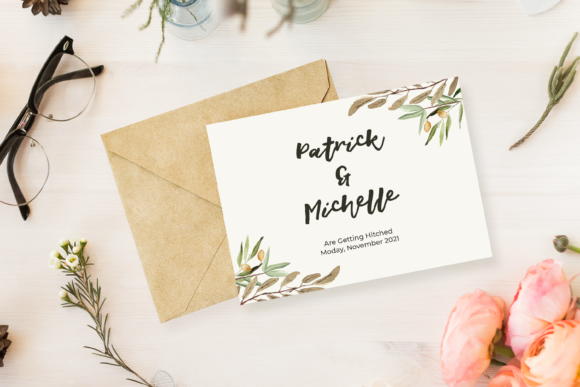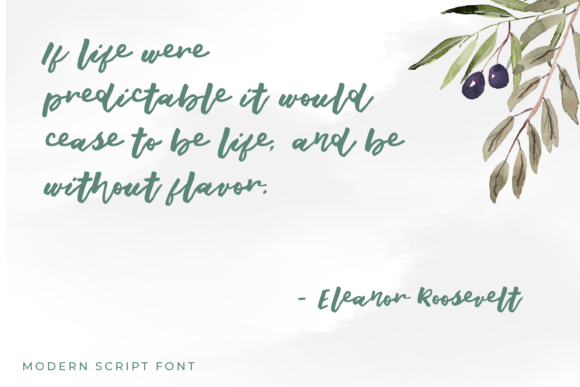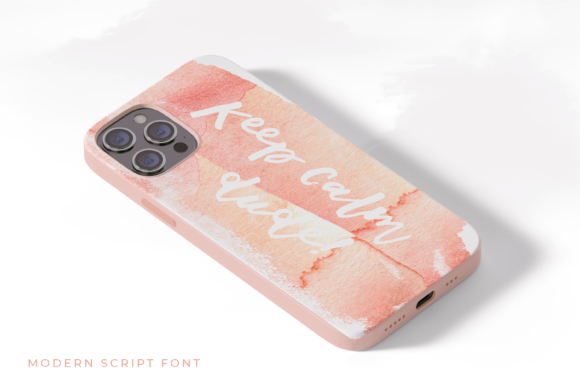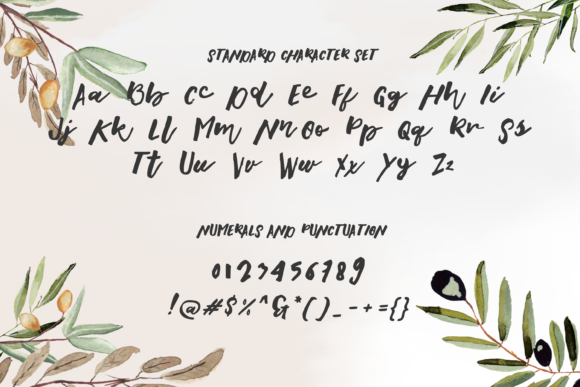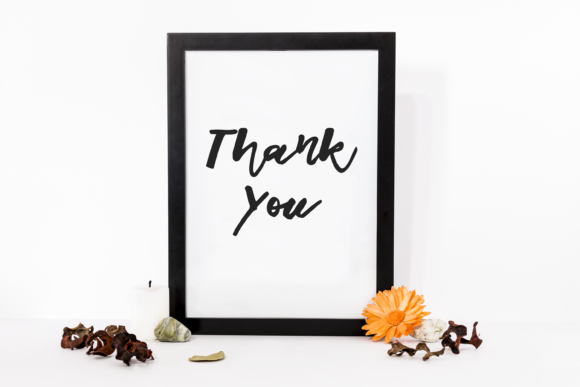
Introduction to Moffat Font
Remember the moment when you stumbled upon the perfect font for your creative project? The one that made your design come alive, and you couldn’t wait to share it with the world? For designers, finding that perfect font can be a game-changer. It’s the difference between a decent design and a truly exceptional one.
Today, we’re excited to introduce you to one such game-changer: the Moffat Font. This modern and cursive paint brushed script font is a design resource that’s sure to elevate your creative projects. With its stunning appearance, it’s perfect for wedding invitations, thank you cards, quotes, greeting cards, logos, business cards, and more. Whether you’re working on a high-quality design or a free download project, Moffat Font is a valuable addition to your design toolkit.
Key Features of Moffat Font
- High-quality, free design resource ideal for creative projects requiring a unique touch.
- Features a transparent background, making it perfect for overlaying on images or other design elements.
- Designed with a modern aesthetic, the Moffat Font is suitable for a wide range of creative projects, from branding and marketing materials to digital art and print designs.
- Size: The font includes a range of weights and styles, from light to bold, allowing designers to customize their project’s typography and visual impact.
Honest Review: Moffat Font
I recently came across the Moffat Font and was excited to try it out for my next creative project. The first thing that caught my attention was its high quality and clean design, making it perfect for a variety of applications, from digital to print media.
Here are some features that work well with the Moffat Font:
- ✨ High quality design that’s perfect for a transparent background
- ✨ Great for both digital and print media
- ✨ Free download, making it an excellent design resource for anyone
- ⚠️ Limited character set, which may not be suitable for longer texts
- ⚠️ Not as versatile as some other fonts in terms of font styles
Overall, I was impressed with the Moffat Font’s design and quality. It’s a great addition to any designer’s toolkit, especially for those looking for a clean and simple font for their creative projects. With its free download and high quality design, it’s definitely a design resource worth checking out.
Tips and Use Cases
Moffat Font is ideal for use in headings, titles, and body text. It is also great for creating a consistent design look across multiple pages or documents. Some common use cases include creating business cards, brochures, and website headers.